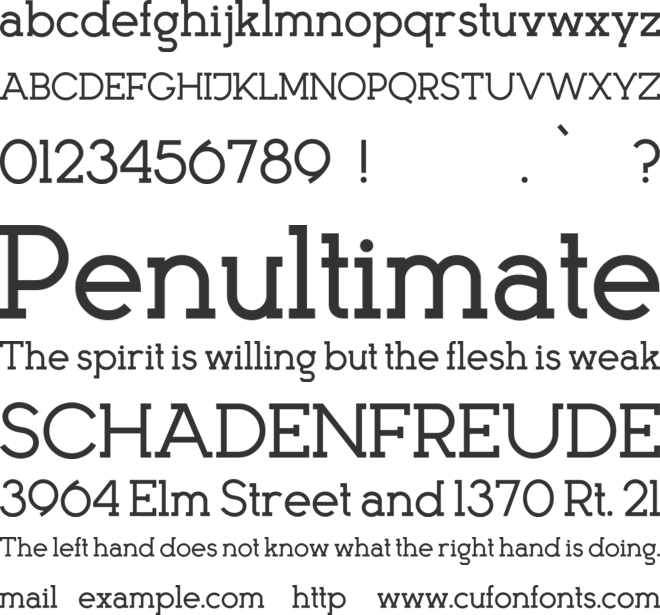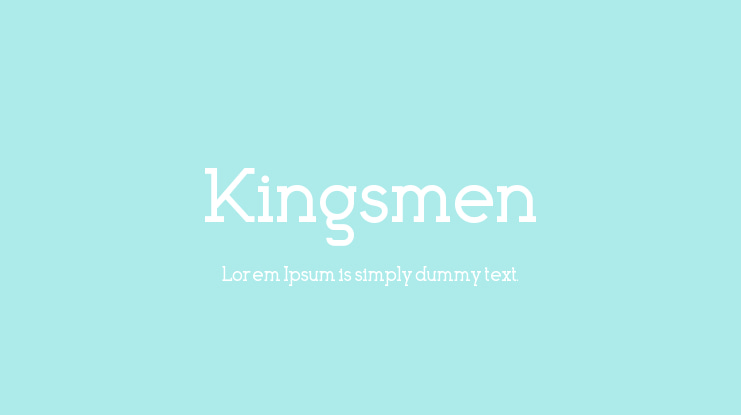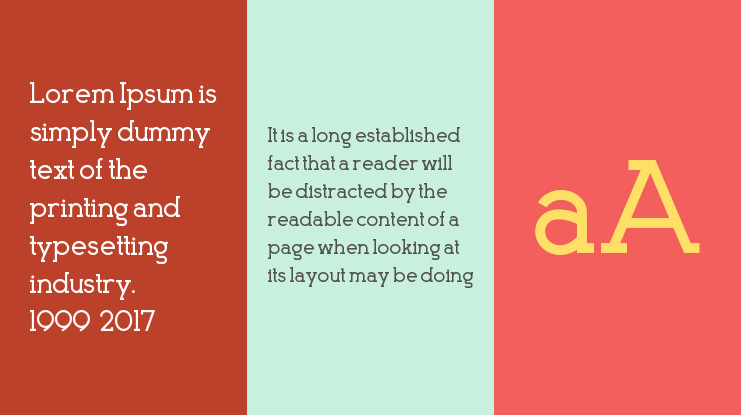
by Sharkshock
Kingsmen is a classic styled slab serif loosely based on fonts found on posters of the 19th century. The geometric design is modeled closely around circles with no variation in stroke
width. Because of this it will make an attractive display font perfect for logos, slogans, and headlines. The serifs do change slightly to give Kingsmen a unique look. Basic Latin,